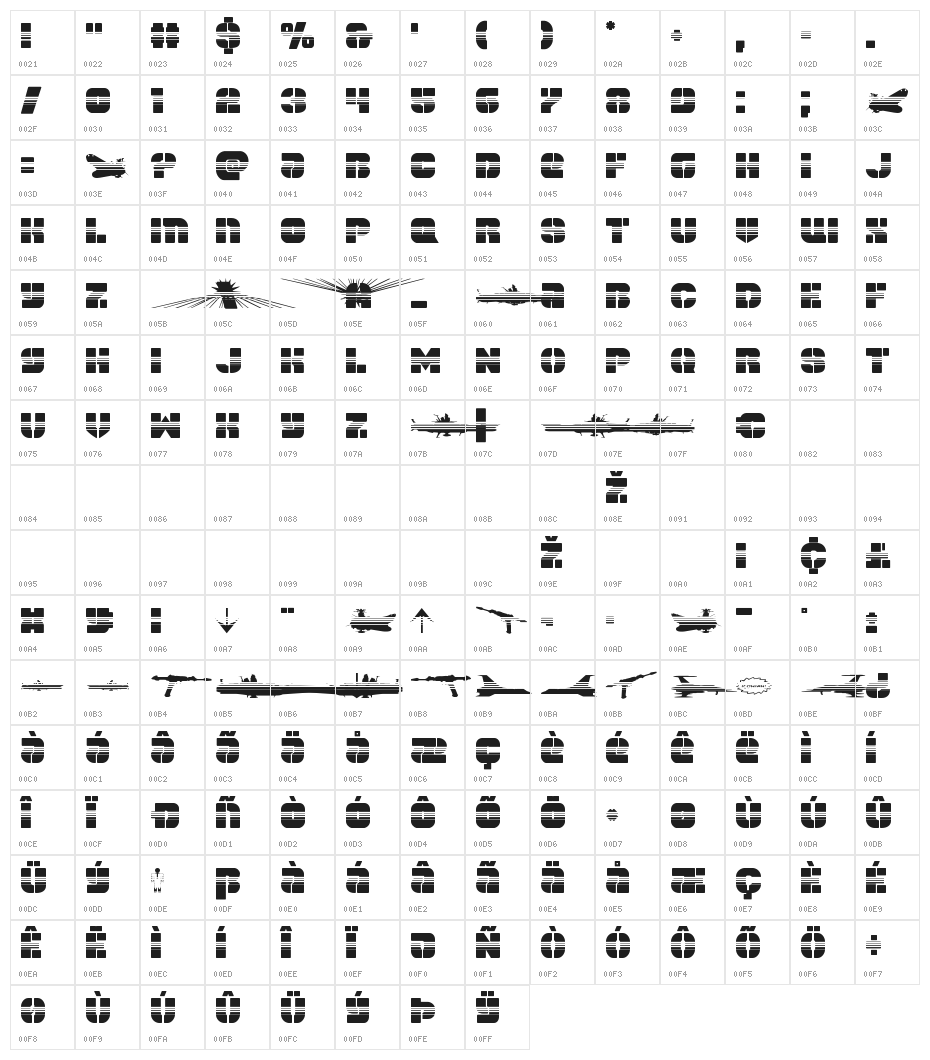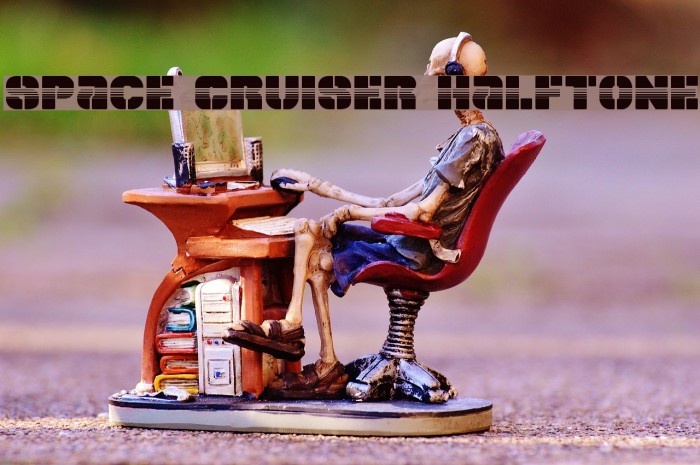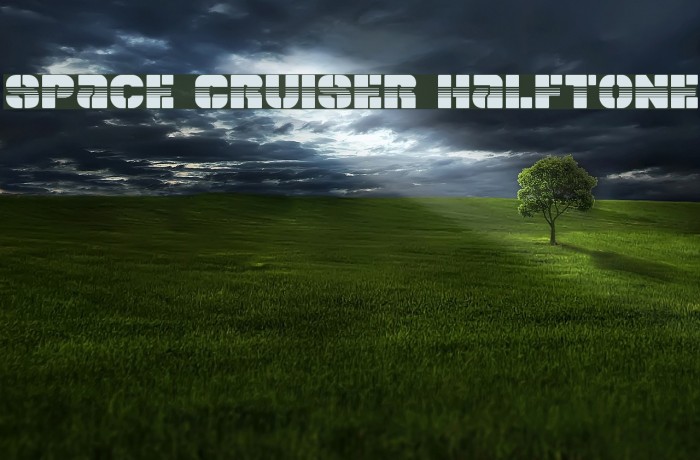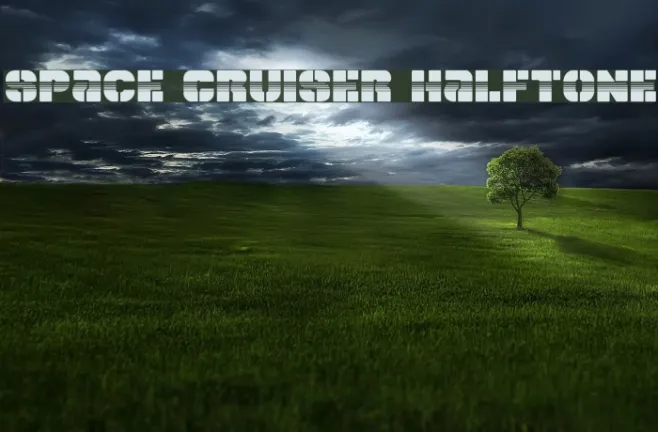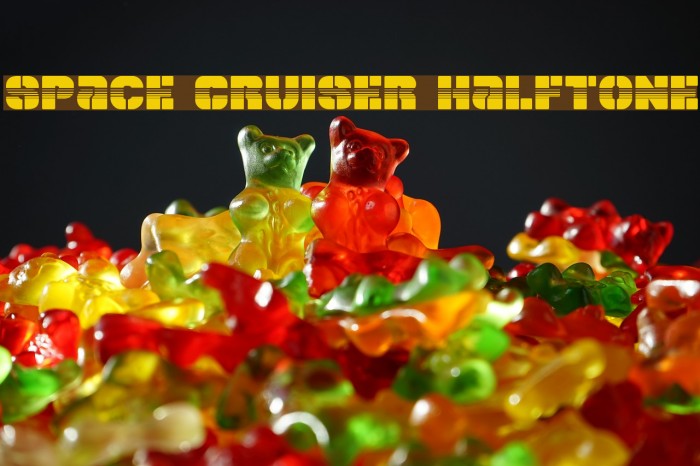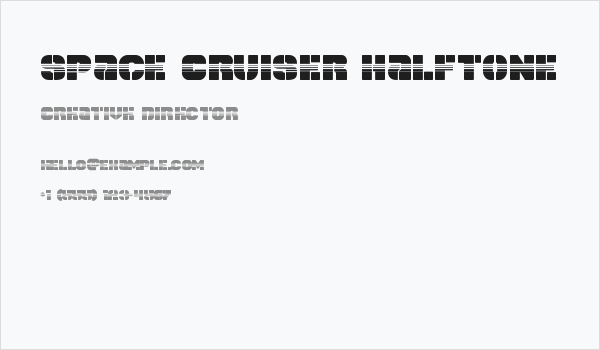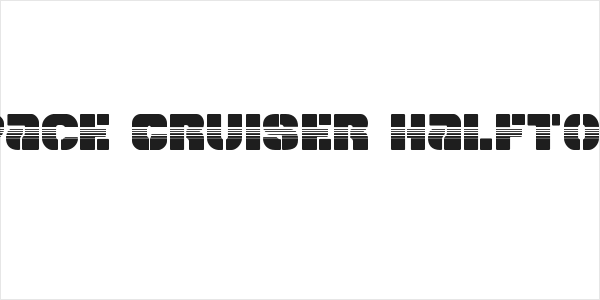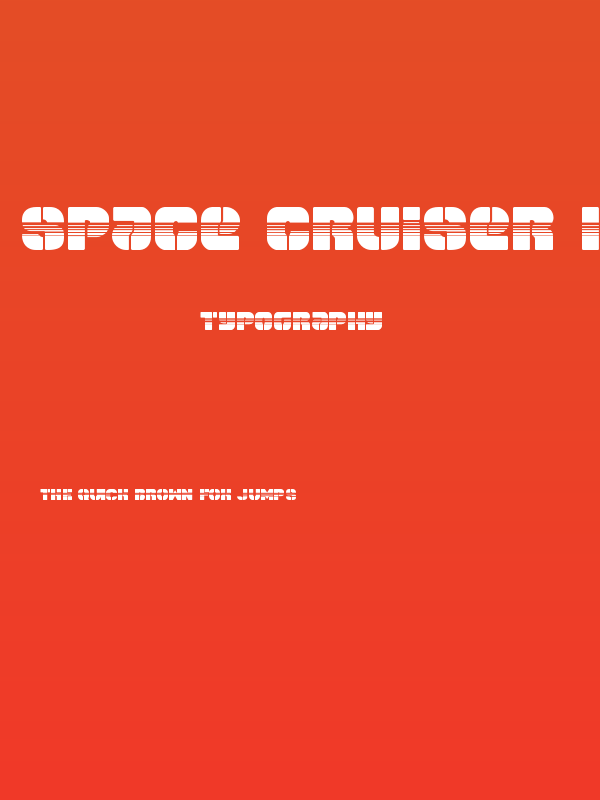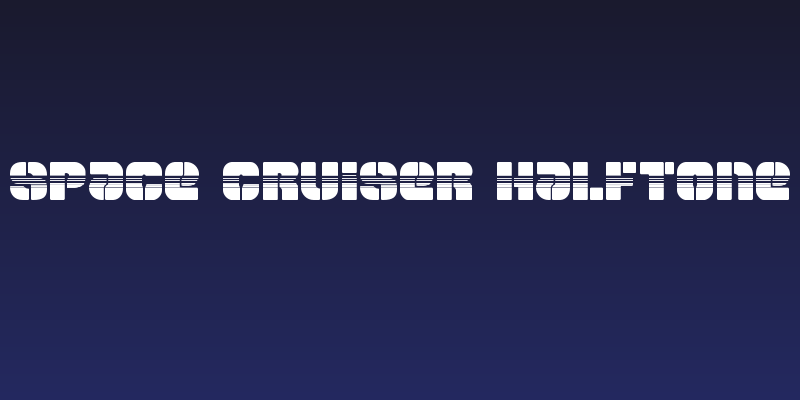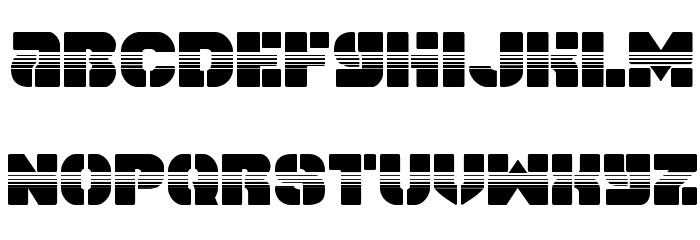
Space Cruiser Halftone Font
Space Cruiser Halftone Description
This font features a bold, futuristic design with a halftone effect that gives it a unique, space-age appearance. The characters are constructed with thick, solid lines interrupted by horizontal stripes, creating a sense of movement and dynamism. The uppercase and lowercase letters maintain a consistent style, with rounded edges and a blocky structure that enhances readability while maintaining a distinct visual impact. The numbers and special characters follow the same design principles, ensuring uniformity across all glyphs. This font's innovative style makes it ideal for projects that require a modern, tech-savvy aesthetic.
| Overall Style | Futuristic, Modern |
| Proposed Projects | Ideal for sci-fi themed posters, video game titles, technology branding, and futuristic event invitations. |